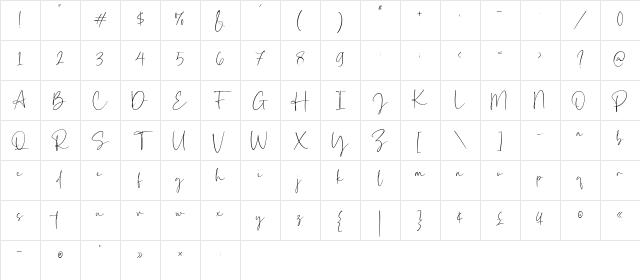
Felicity Aubrielle Regular Free Font
Felicity Aubrielle Regular
Designer: Timur Type Studio
Design Context for Felicity Aubrielle
Felicity Aubrielle is a composed and adaptable typeface that performs quietly and consistently across a wide range of design contexts.